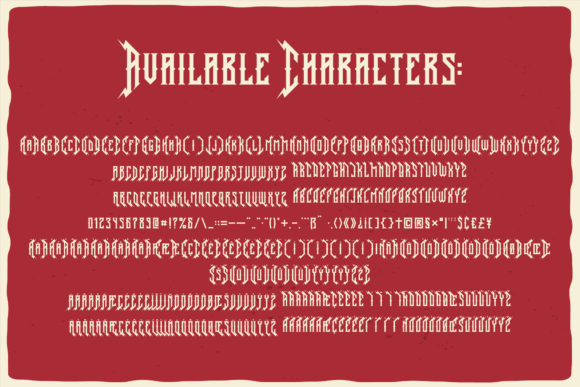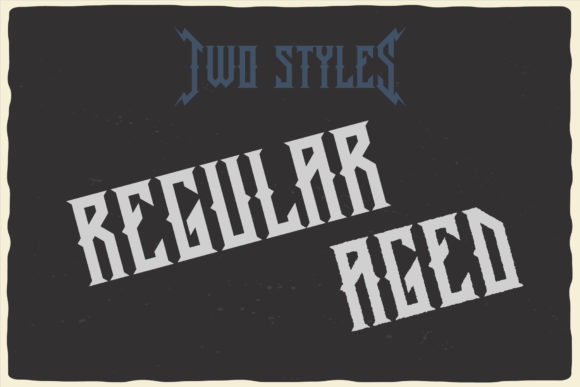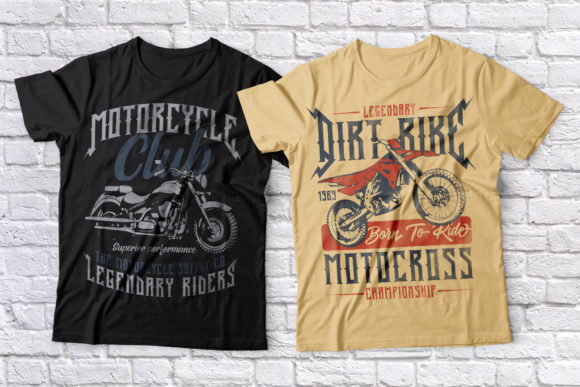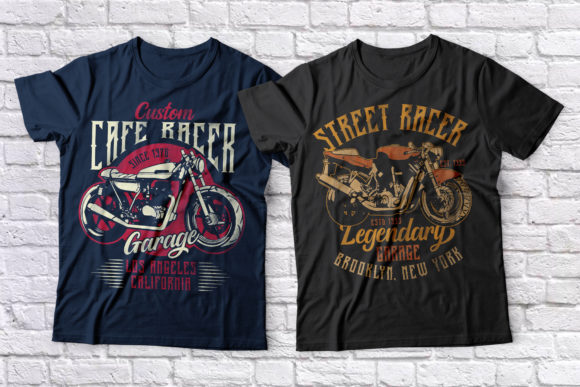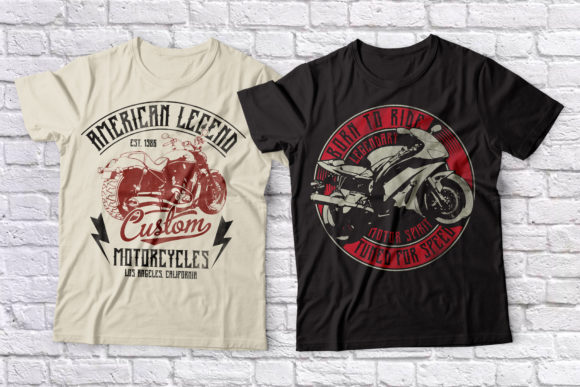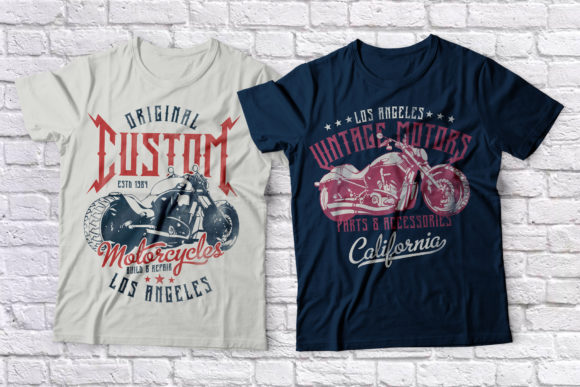
Introduction to Old Biker Font
Have you ever stumbled upon a design that sparks your creativity, and you just can’t shake off the feeling that you need to bring it to life? That’s exactly what happened to me when I discovered the Old Biker Font. Its bold and authentic blackletter style immediately caught my attention, and I knew I had to learn more about this design resource.
As a designer, I’m always on the lookout for high-quality fonts that can elevate my creative projects and give them that extra edge. The Old Biker Font is perfect for casual designs, and its urban style makes it a top choice for designers who want to add a touch of edginess to their work. With a transparent background, this font is ready to be downloaded and used in your next design project.
Whether you’re working on a personal project or a commercial design, the Old Biker Font is a valuable addition to any design toolbox. So, let’s dive in and explore the world of this fantastic font, and discover why it’s a must-have for any designer.
Key Features of Old Biker Font
- Unique, distressed design that resembles a vintage biker logo, ideal for creative projects and designs that require a rugged, laid-back feel.
- High-quality font with transparent background, making it easy to use as a design resource in various applications.
- Perfect for designers and artists working on creative projects, such as logos, posters, and other visual materials that require a unique, eye-catching font.
- Easy to customize and modify to fit your specific design needs, making it a valuable addition to any design resource library.
Honest Review: Old Biker Font
- The font’s distressed texture adds a unique touch to any design project.
- The high quality of the font ensures it looks great even at large sizes.
- The transparent background makes it easy to use in various design contexts.
Overall, I’m impressed with the Old Biker Font’s ability to bring a sense of grit and nostalgia to creative projects.
- The font’s limited character set might make it less suitable for long-form text projects.
- The distressed texture can be overwhelming if used in excess.
Despite these limitations, I believe the Old Biker Font is a valuable addition to any designer’s toolkit, especially for projects that require a bold, vintage aesthetic.
Tips for Getting the Most Out of Old Biker Font
To get the most out of Old Biker Font, experiment with different font sizes, colors, and combinations. You can also use it in conjunction with other design elements, such as images or graphics, to create a unique visual effect.
Common Use Cases for Old Biker Font
Old Biker Font is commonly used in creative projects, such as posters, flyers, and marketing materials. It’s also suitable for presentations, reports, and other documents that require a touch of creativity.